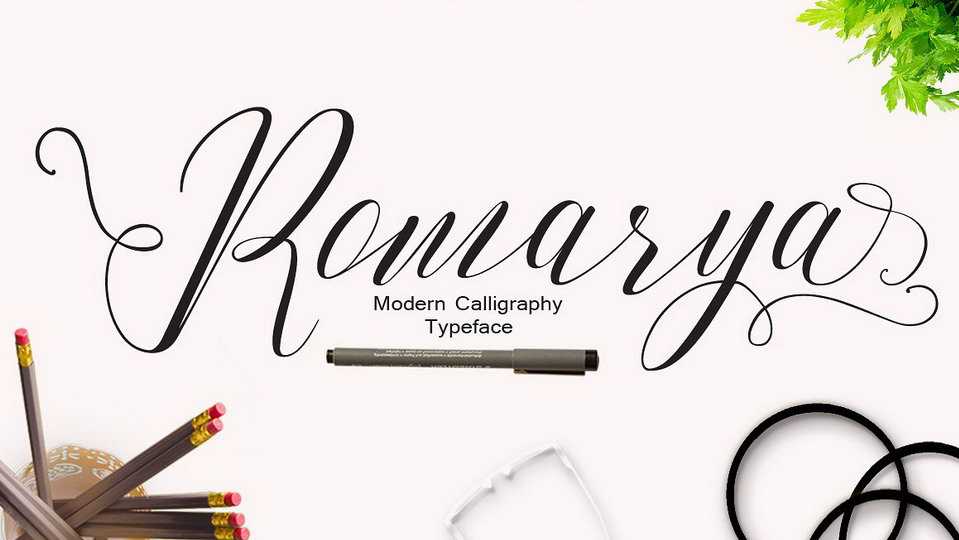
Download Romarya font, an attractive modern calligraphy script with a unique letter style, naturaly handdrawn. It has a softer and smoother character subtly connect all the characters.